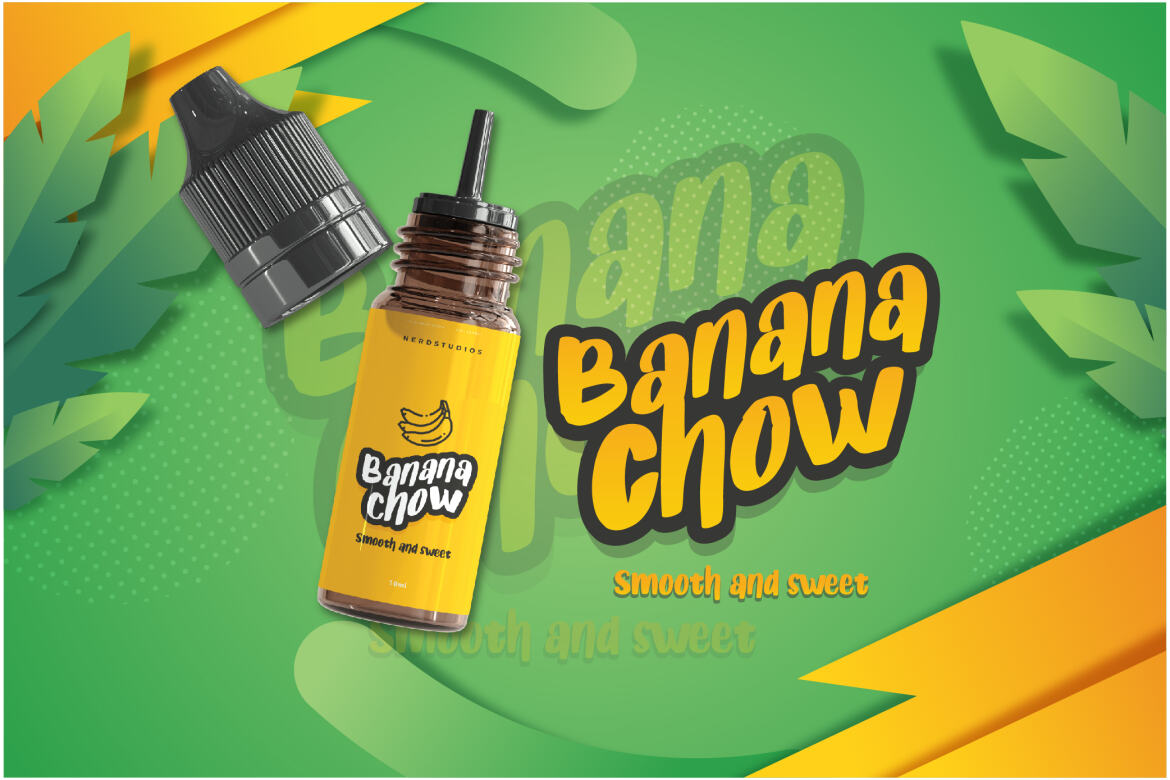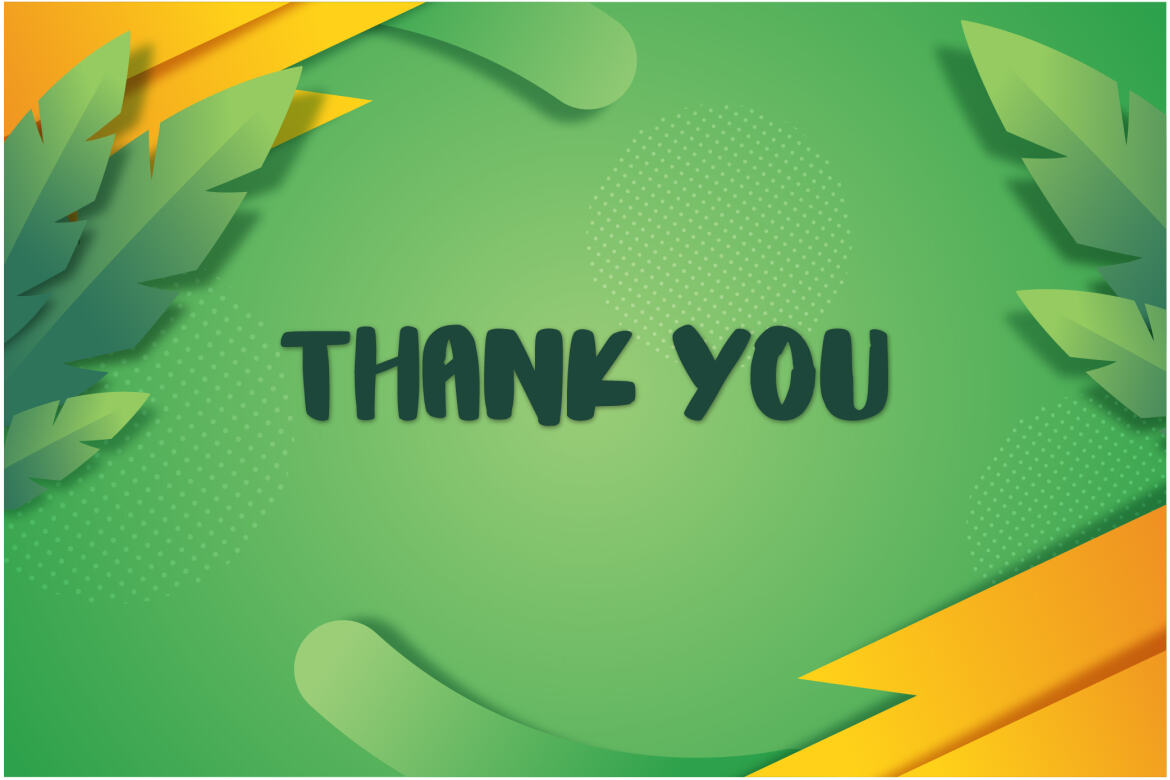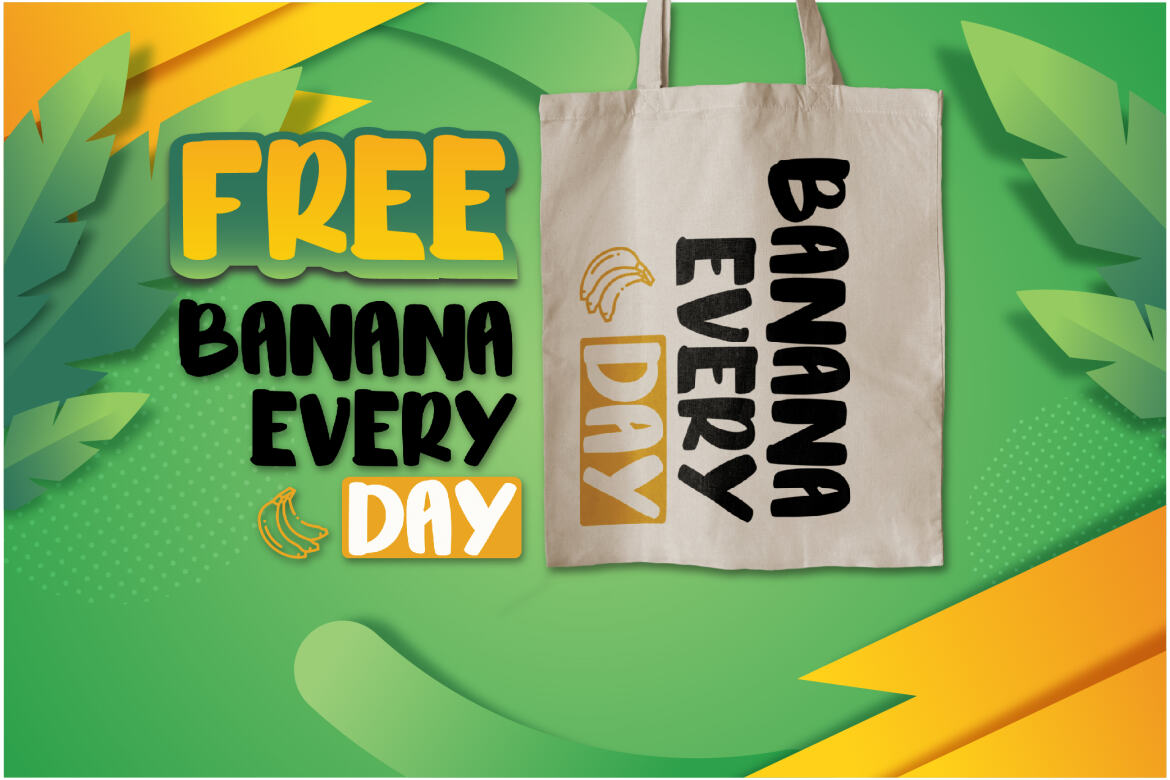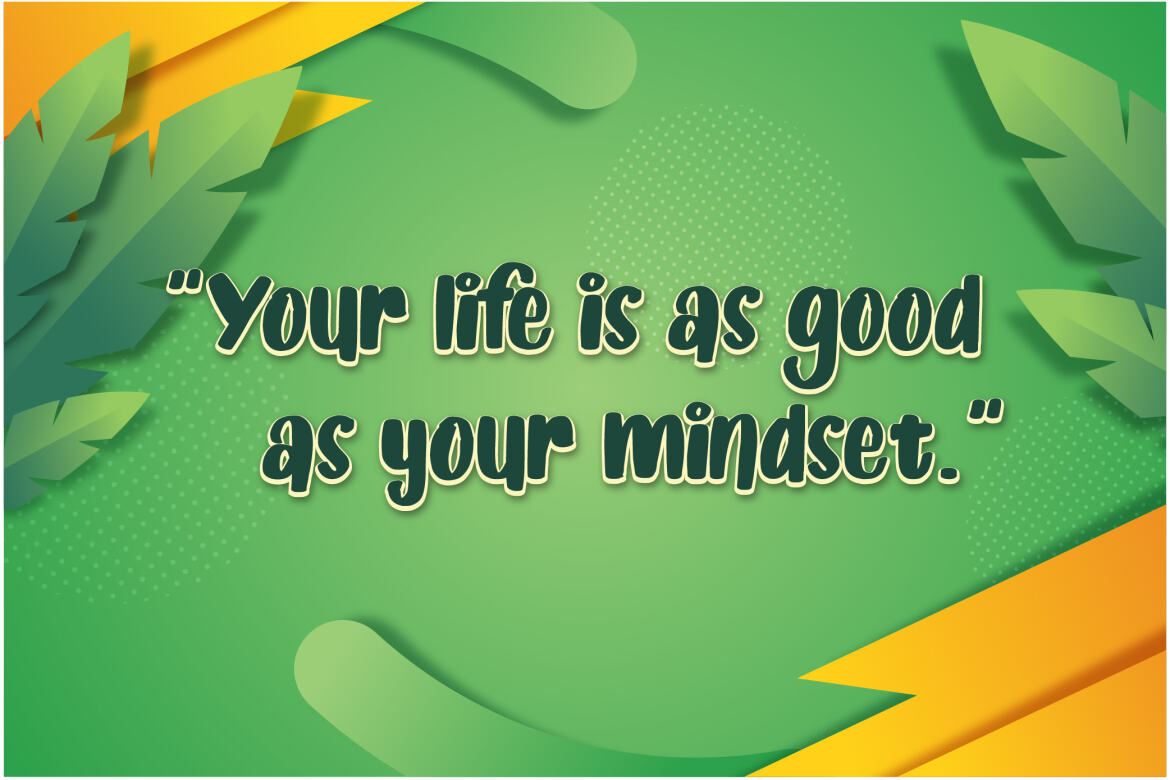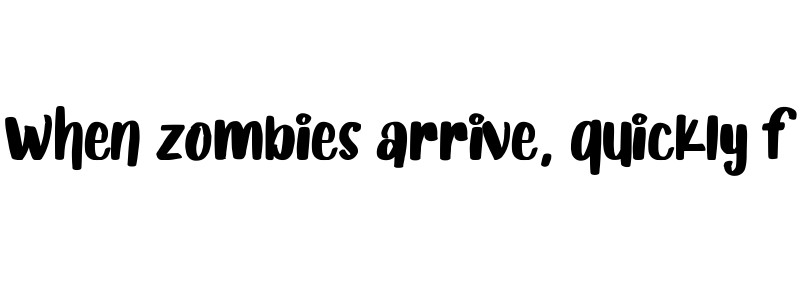
Banana Split Cartoon FREE Font
Banana Split – Cartoon Font is a design font with a natural brush style that can enhance the quality of your designs.
Banana Split – This Cartoon Font is perfect for designs, logos, social media, brands, advertisements, product designs, handwritten quotes, product packaging, headers, posters, merchandise, and other designs.